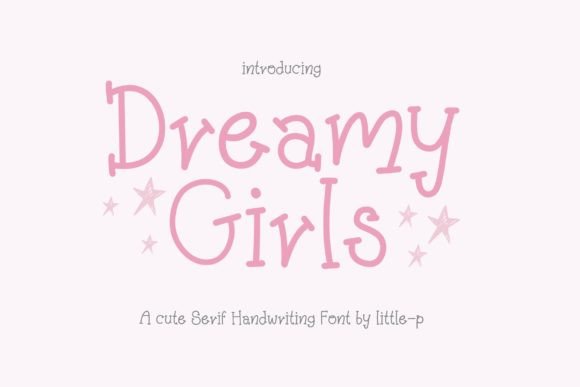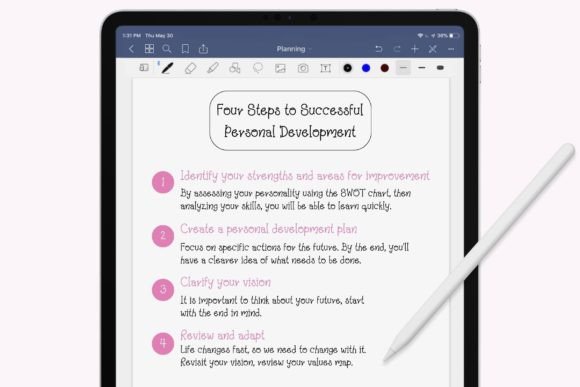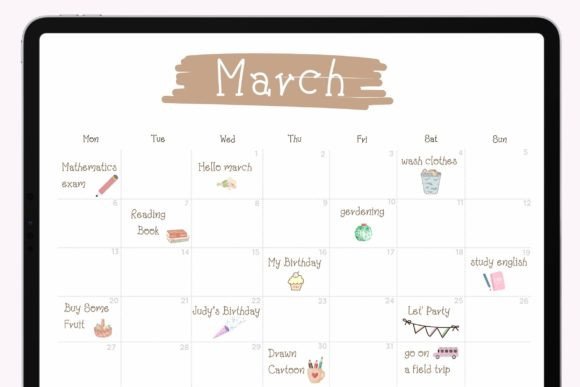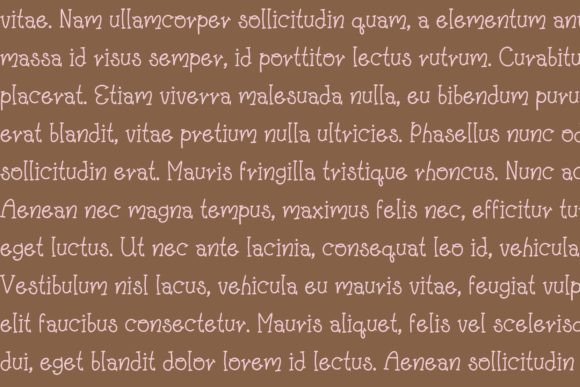
Dreamy Girls Font: A Cute Handwritten Serif for Cricut & Planner Designs
About the Dreamy Girls Font
Discover the charm of Dreamy Girls Font. This font is a perfect blend of modern aesthetics and classic appeal. Introducing “Dreamy Girls” the girly handwritten font that effortlessly captures the essence of brightness and childhood charm. Perfect for note-taking, digital planners, educational materials, GoodNotes, greeting cards, quotes, handwritten notes, and more, “Dreamy Girls” infuses a sense of whimsy into your creative projects. With its playful strokes and feminine allure, this font brings a dreamy quality to your designs, making every endeavor a delightful expression of creativity.
“Dreamy Girls” thrives in applications requiring a lighthearted and approachable aesthetic. It excels in short text segments like headlines, social media posts, and branding elements for products targeting a young female demographic. Use it effectively on packaging, greeting cards, or invitations where its whimsical charm adds a personal touch. However, avoid using it for body text or lengthy paragraphs; its playful nature can hinder readability in large blocks of text. It’s also not ideal for UI, where clarity and legibility are paramount.
Consider pairing “Dreamy Girls” with a clean sans-serif font like Open Sans for a balanced contrast, or a delicate serif like Lora for a more sophisticated feel. For a playful pairing, explore a rounded geometric sans-serif such as Nunito Sans.
The font’s core personality is undeniably playful and feminine, radiating youthful energy and a sense of sweet charm. It’s best suited for brands and projects that wish to project an approachable, friendly, and lighthearted image.